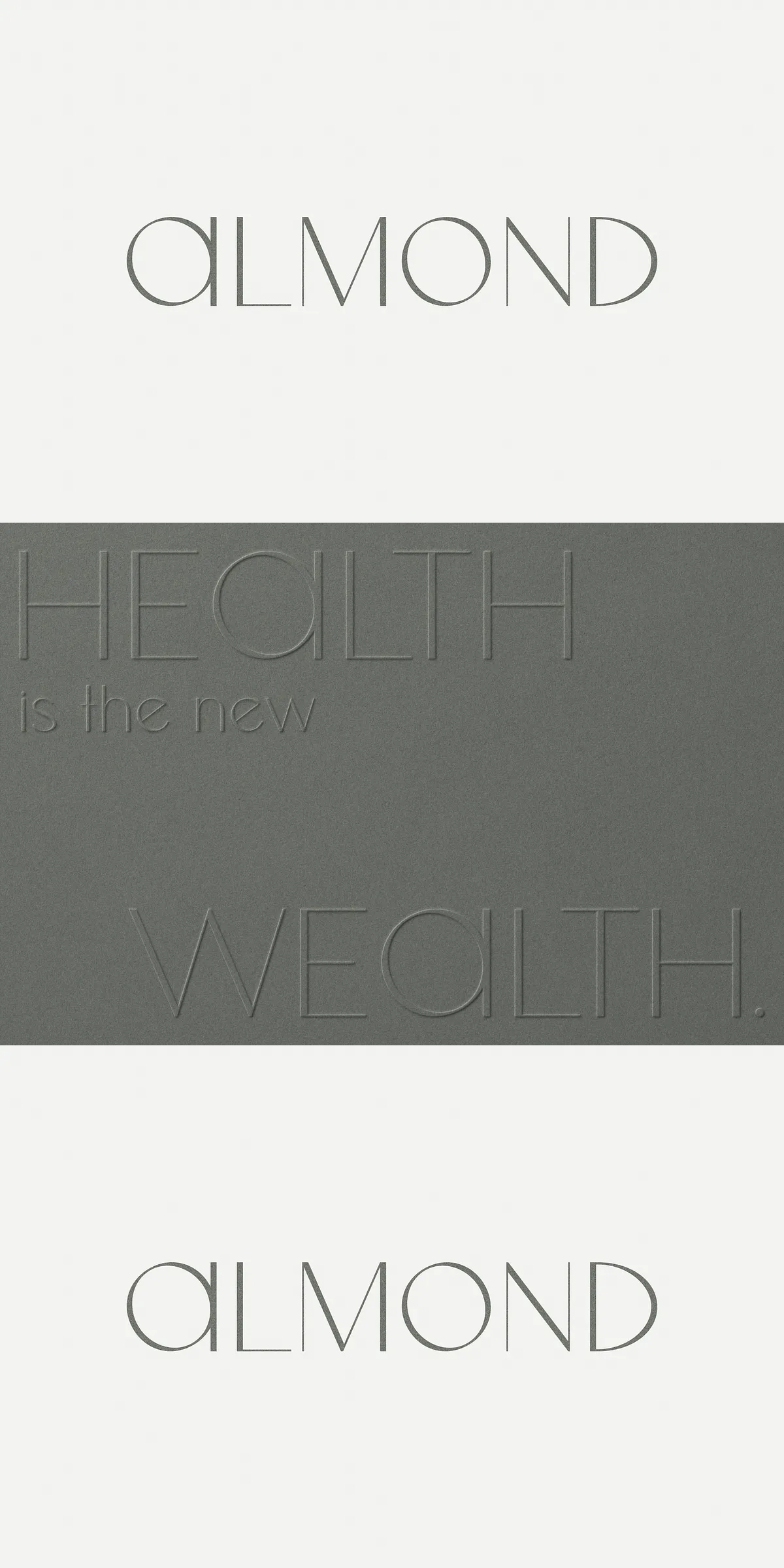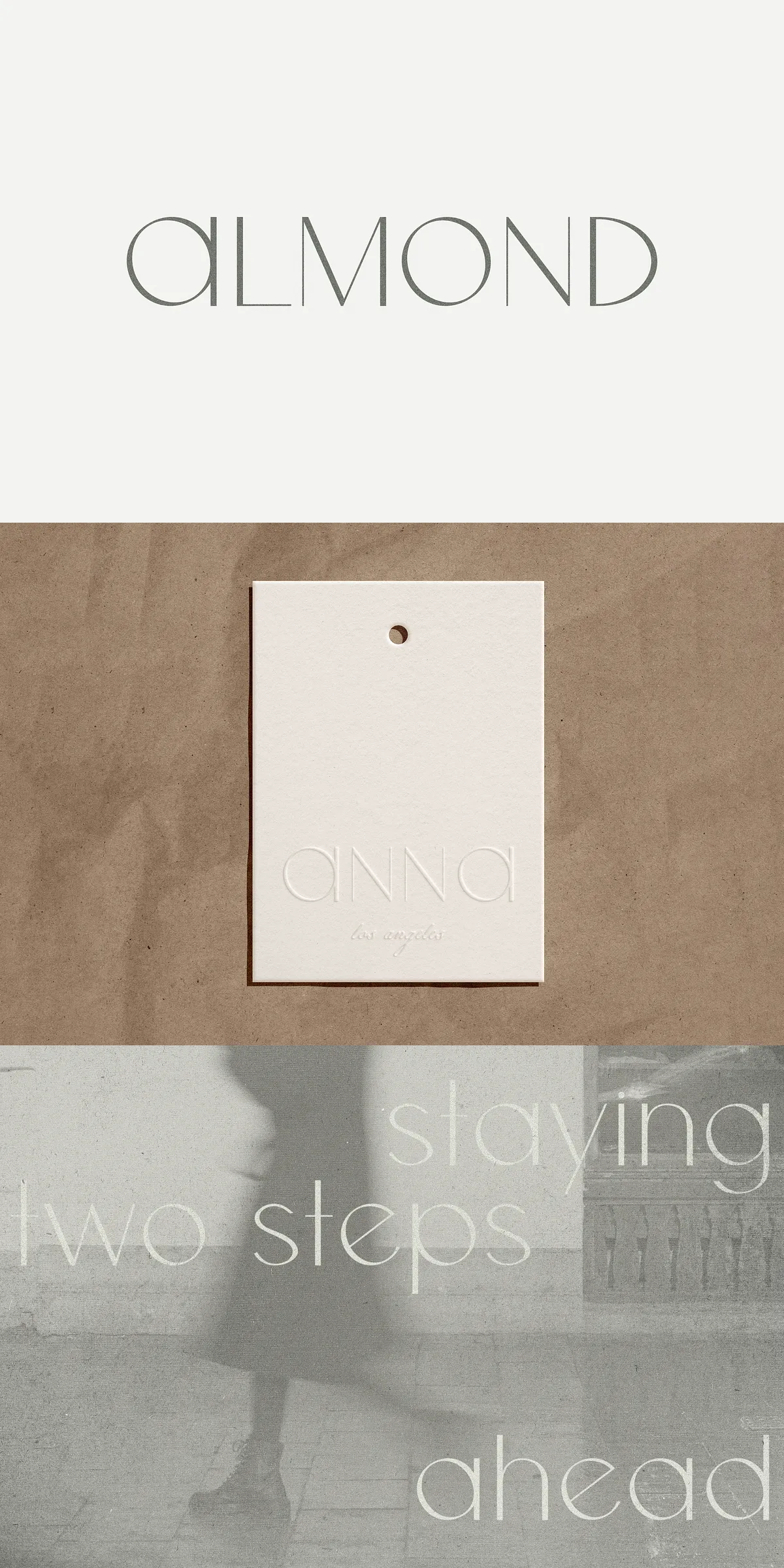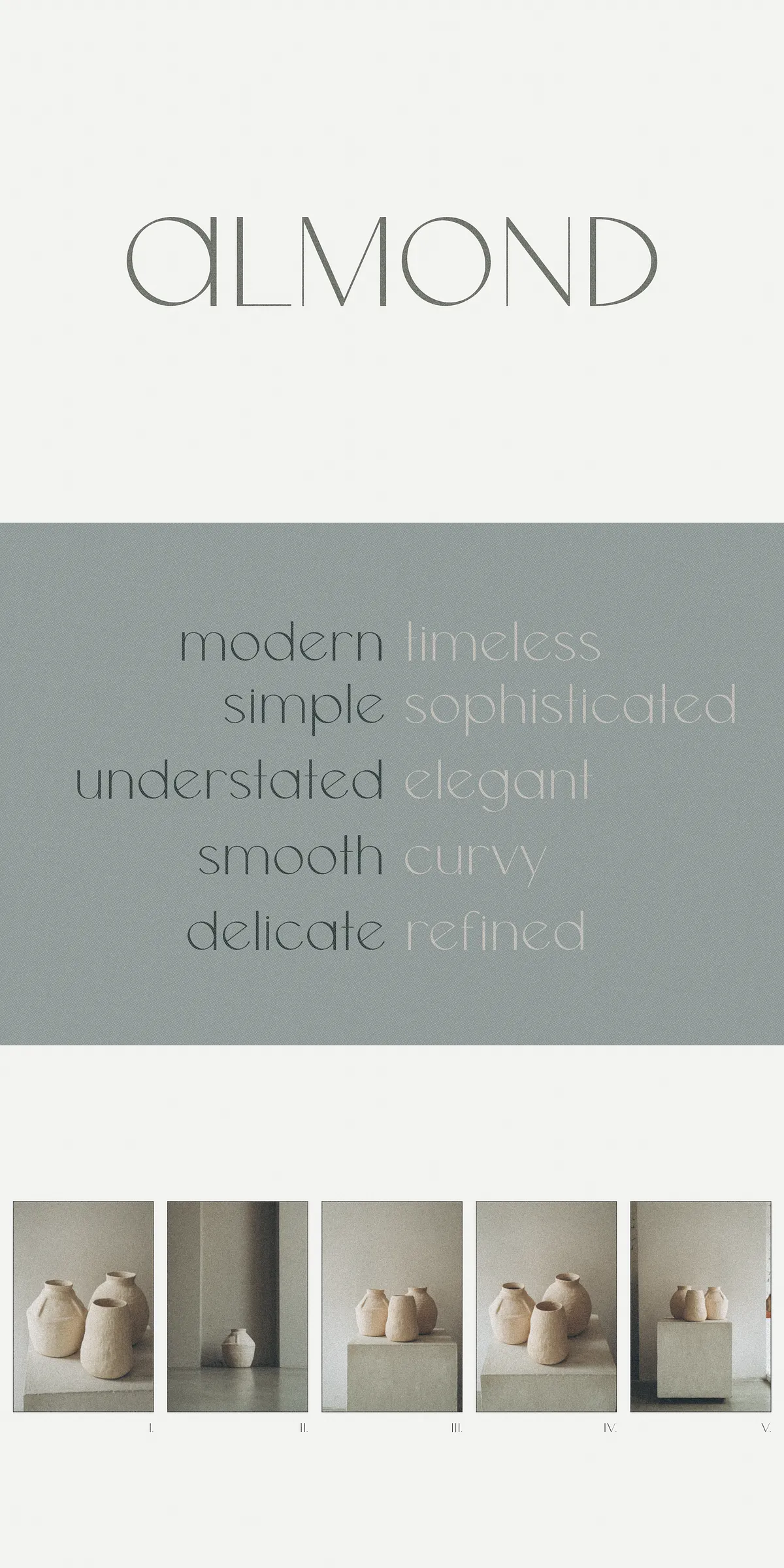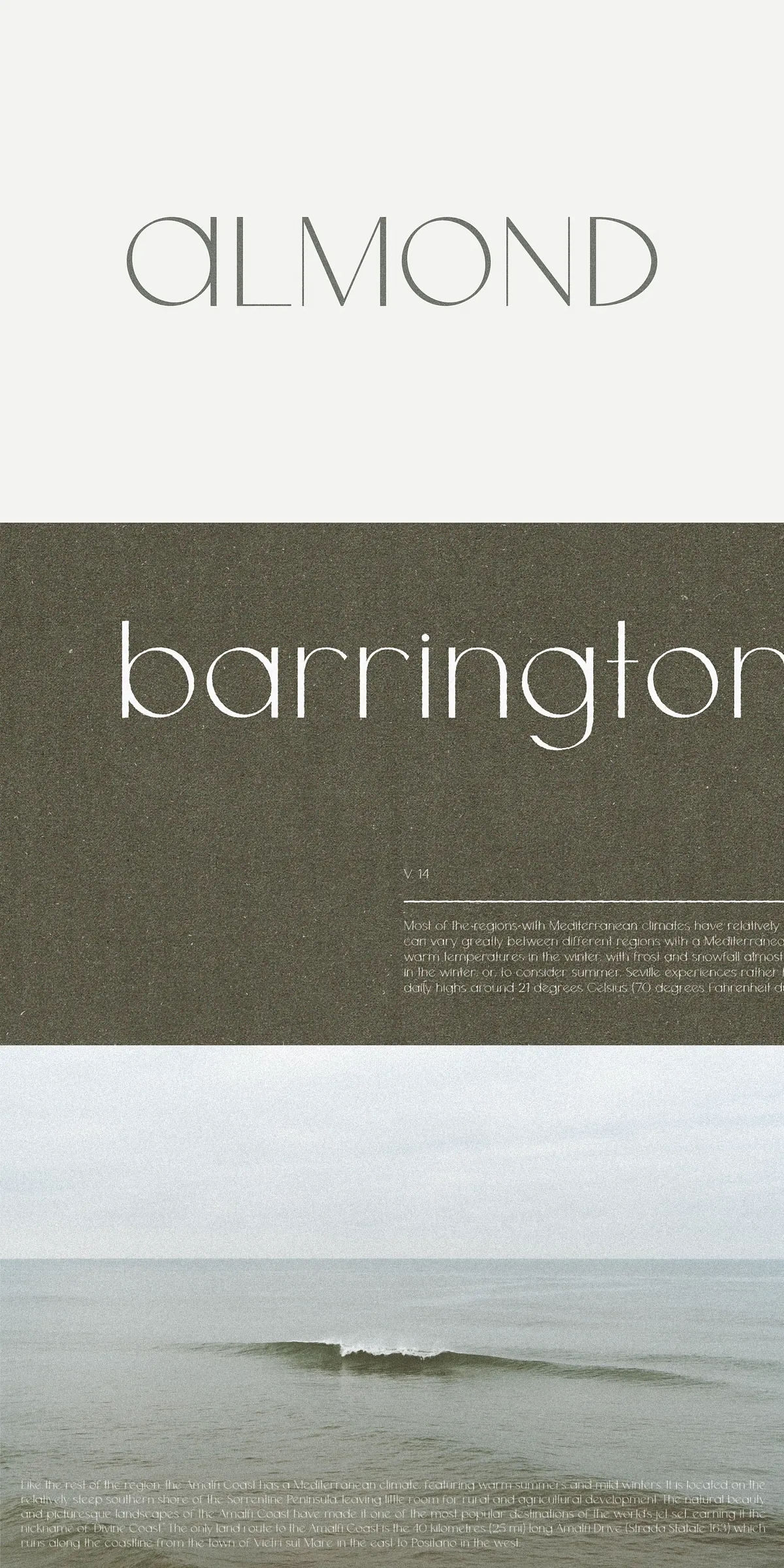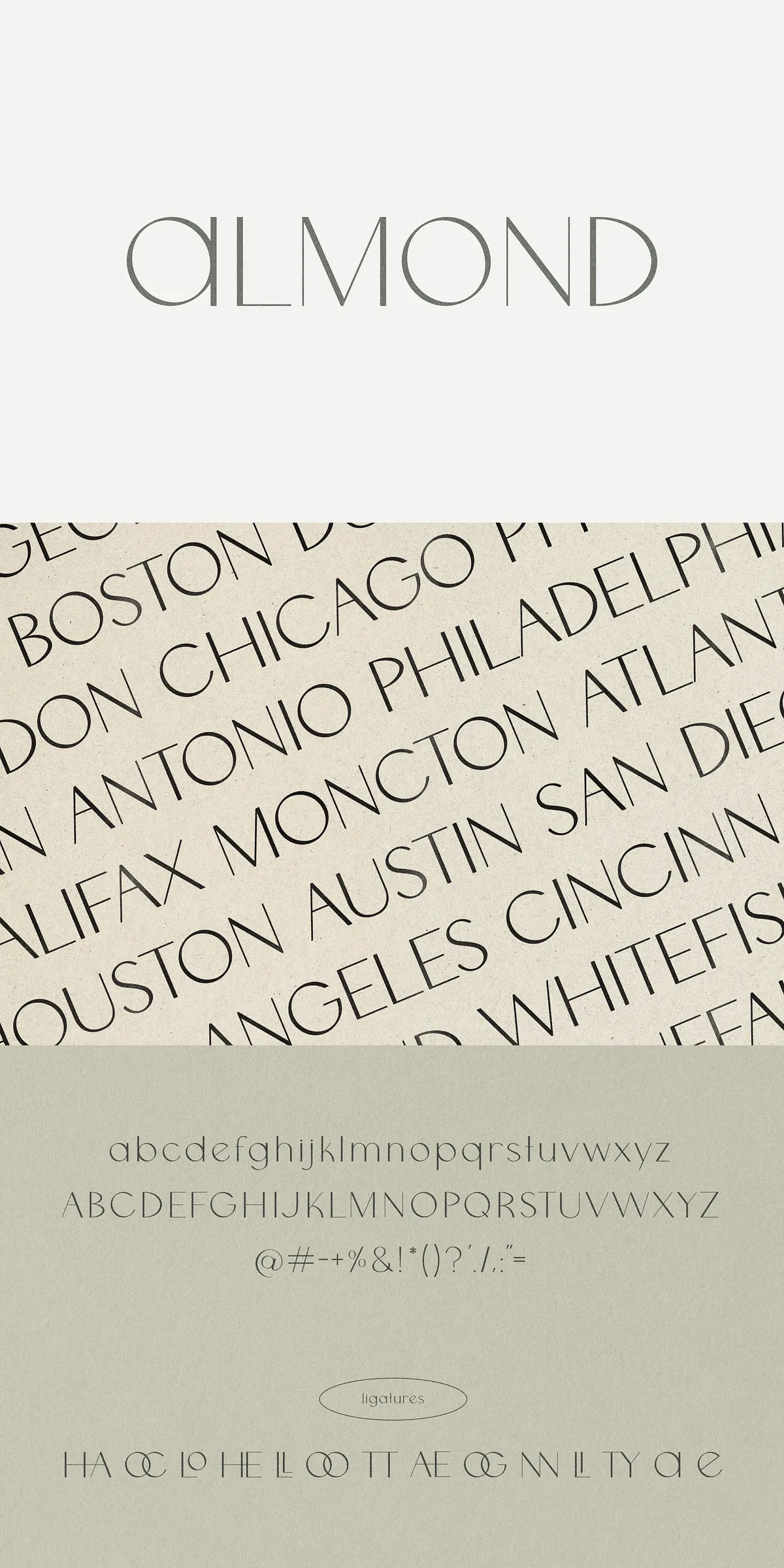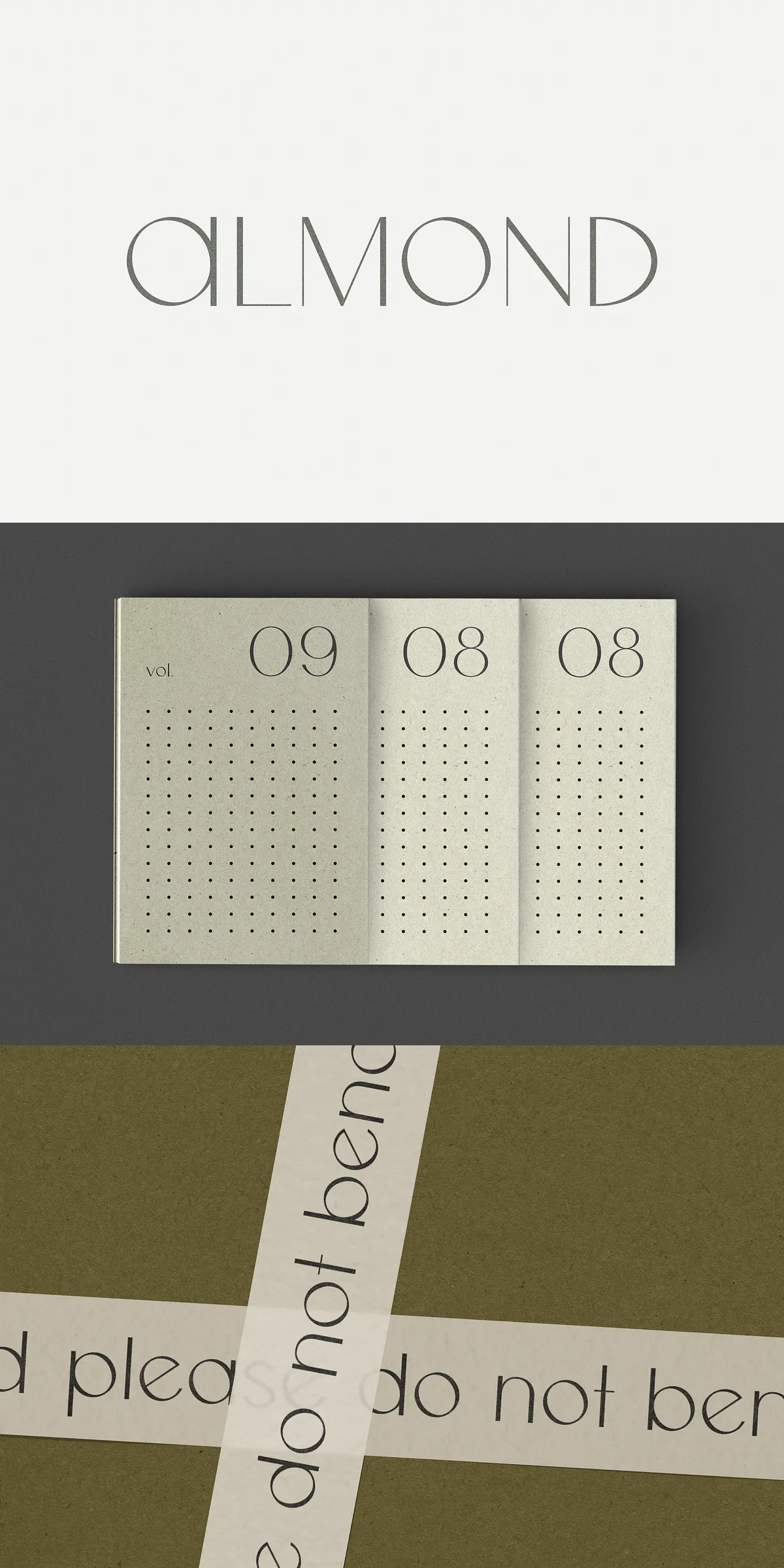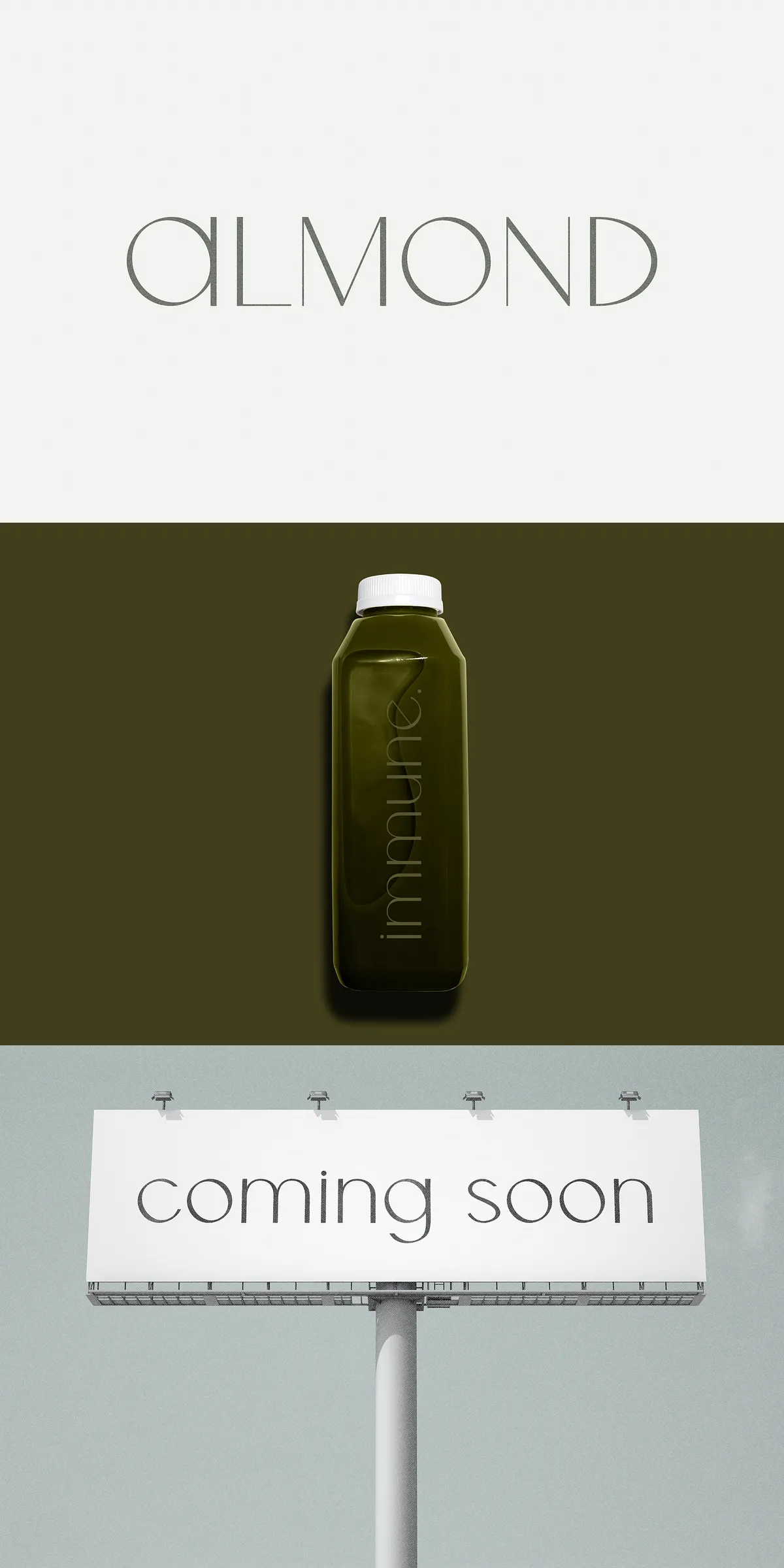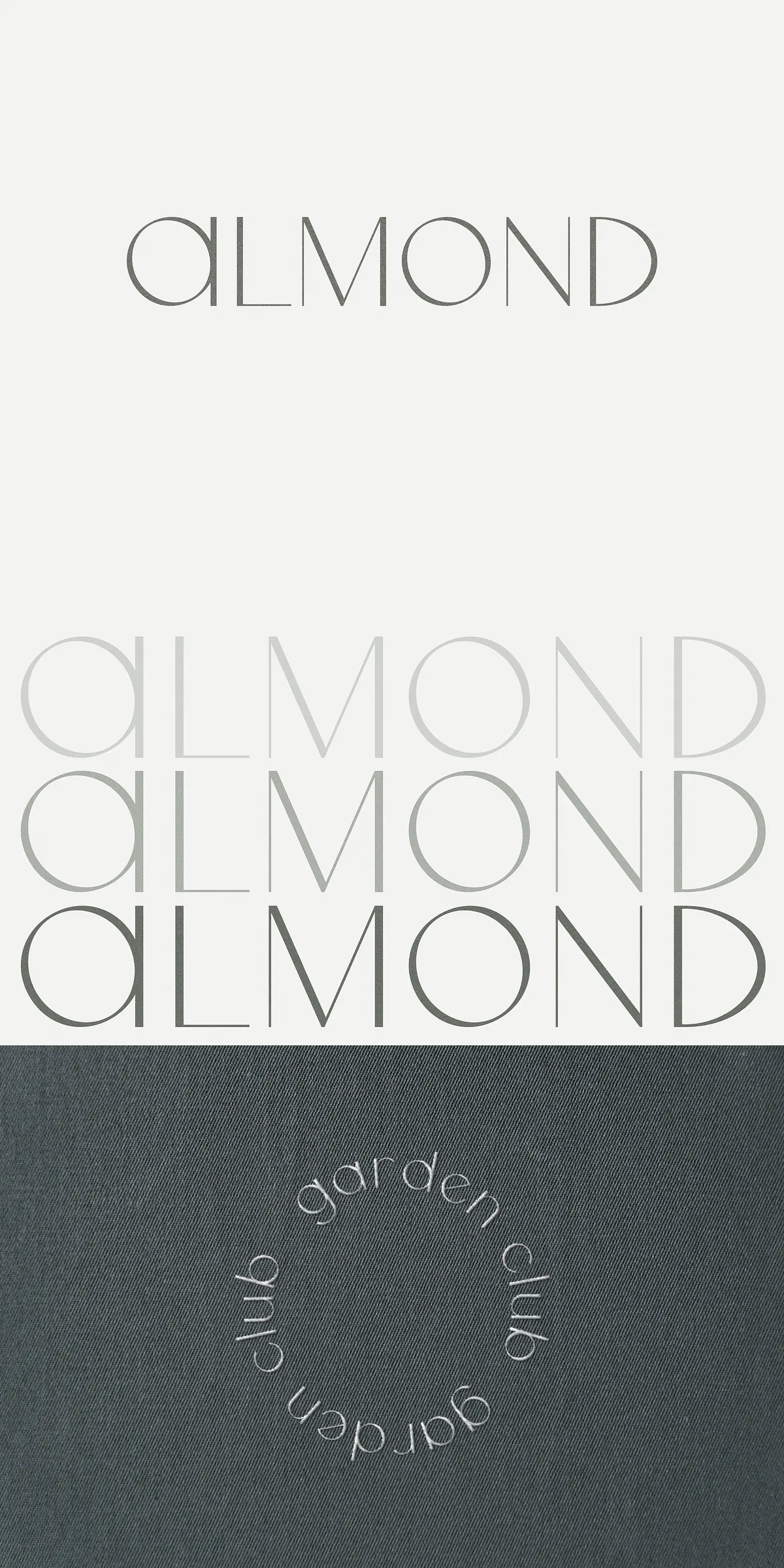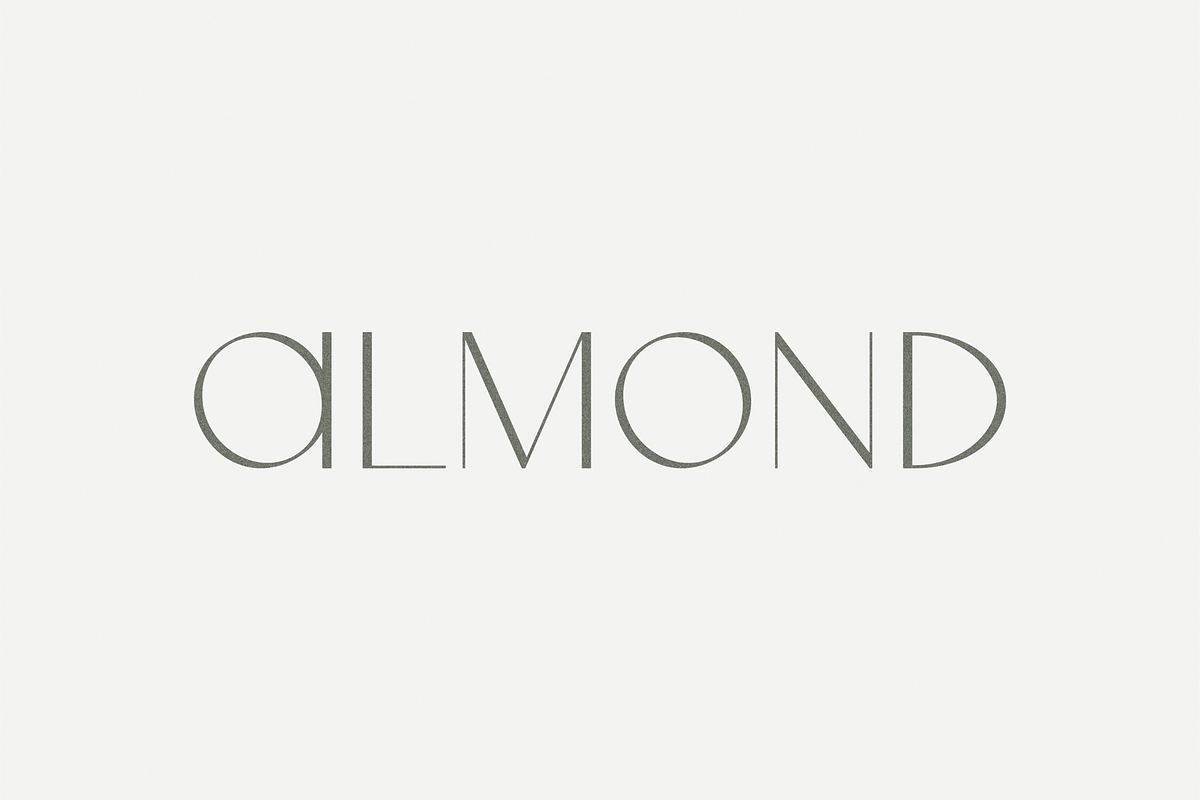
Almond commands attention with its classic yet modern presence, offering a smooth, buttery texture that effortlessly conveys sophistication. Designed as a sans serif display font, Almond features clean, crisp lines paired with scroll-stopping contrast strokes that make it a perfect choice for high-impact visual projects. From logos and branding to monograms, posters, and website headers, it elevates every design with its refined character and timeless appeal.
Design Characteristics and Unique Style Elements
Almond stands out for its harmonious blend of simplicity and flair. Its curvy, flowing forms evoke a sense of elegance while maintaining exceptional legibility. The font’s contrast strokes provide visual interest that grabs attention without overwhelming the eye, allowing for bold statements in any creative application. This balance of strength and grace makes Almond exceptionally versatile and suitable for a wide range of uses where clarity and distinction are paramount.
Applications in Branding and Editorial Design
This font excels in branding projects, creating memorable logos and monograms that communicate professionalism and style. It lends a striking presence to posters and invitations, helping key messages stand out with confidence. Website headers and subheaders gain a fresh, contemporary edge when set in Almond, pairing beautifully with minimal sans serifs or classic script fonts. Editorial designs also benefit from Almond’s clean yet expressive lines, making articles and feature spreads visually engaging and easy to follow.
Why Choose Almond for Your Next Project?
Whether you aim to craft a sophisticated logo, refine your branding strategy, or produce powerful editorial layouts, Almond is purpose-built to deliver. Its strong, yet fluid design elevates every word, making your message more memorable and visually appealing. By combining classical elegance with modern sensibilities, Almond offers a distinct voice that enhances any creative project with confidence and style. Its extensive typographic features and broad format support make it a reliable and adaptable asset for designers across industries.
In summary, Almond is a stylish and versatile sans serif display font that balances curvaceous form with clean lines and high contrast, creating a dynamic yet refined typographic presence. Its comprehensive package and functional flexibility make it an ideal choice for contemporary design needs where sophistication meets performance.